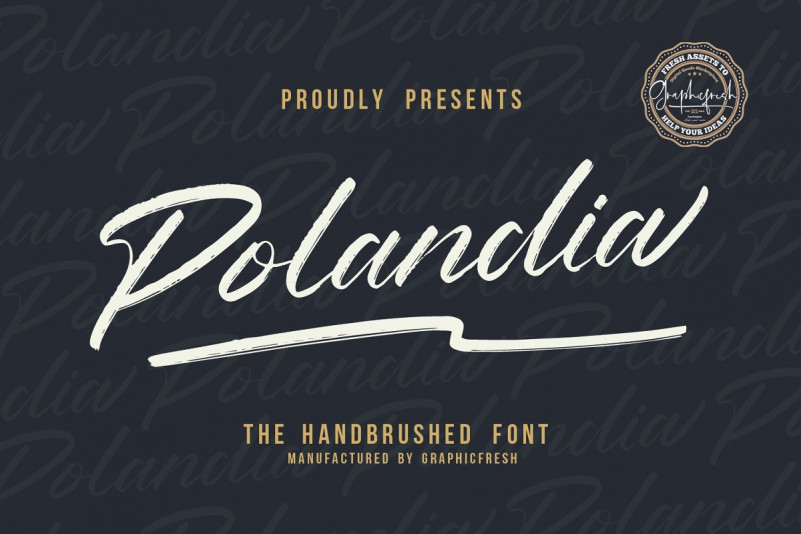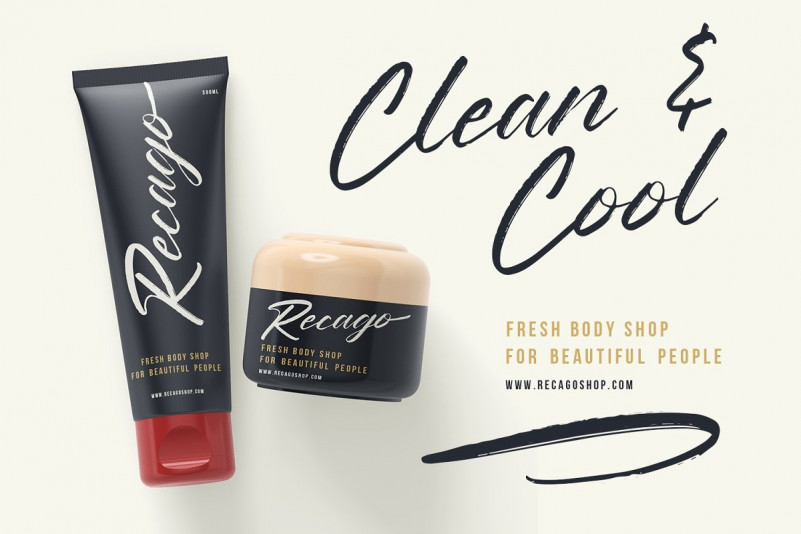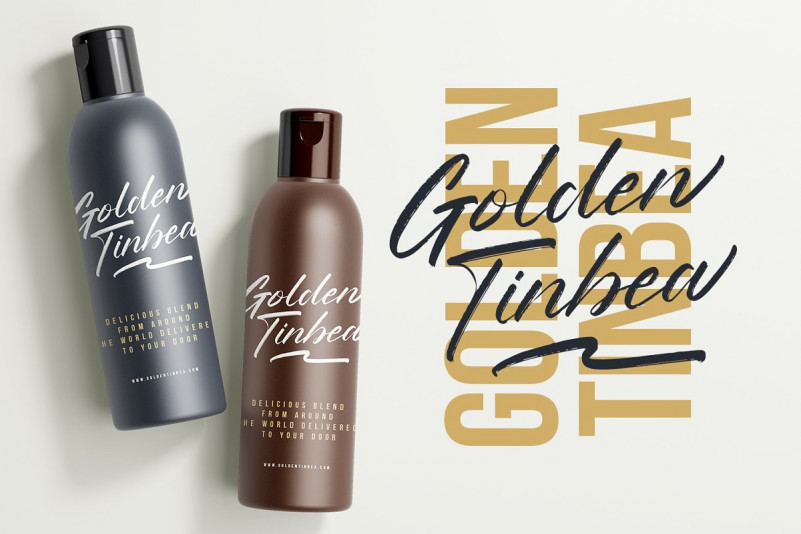
Polandia Font
Introducing Polandia – The Handbrushed Font. It comes with an elegant and modern style which is perfect to make any design stand out! This font is perfect for branding, wedding invites, magazines, mugs, business cards, quotes, posters, and more.